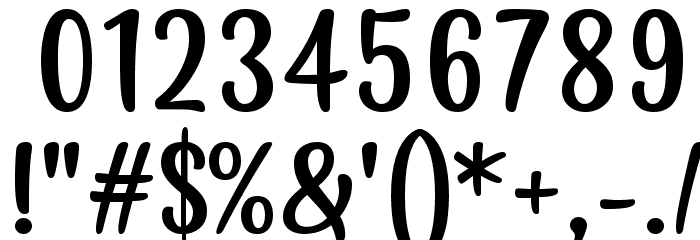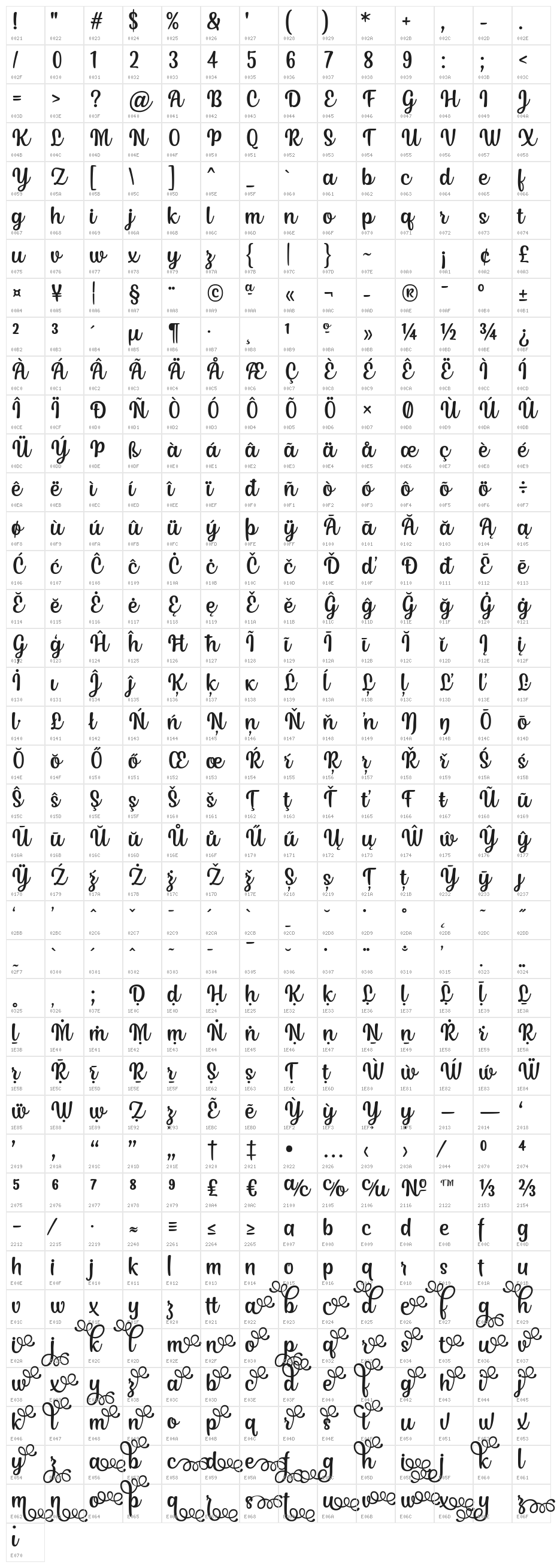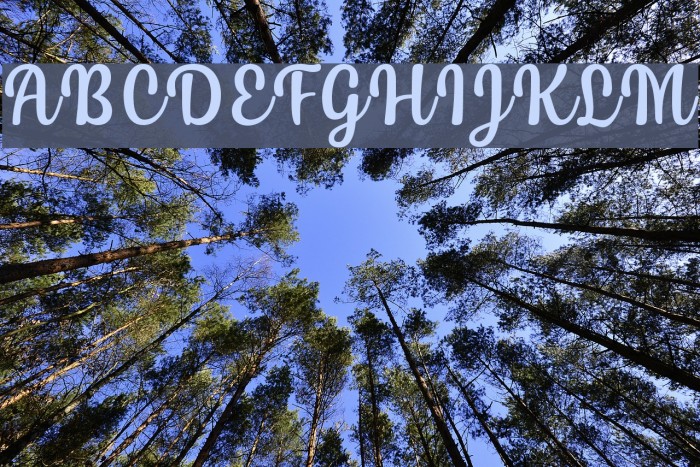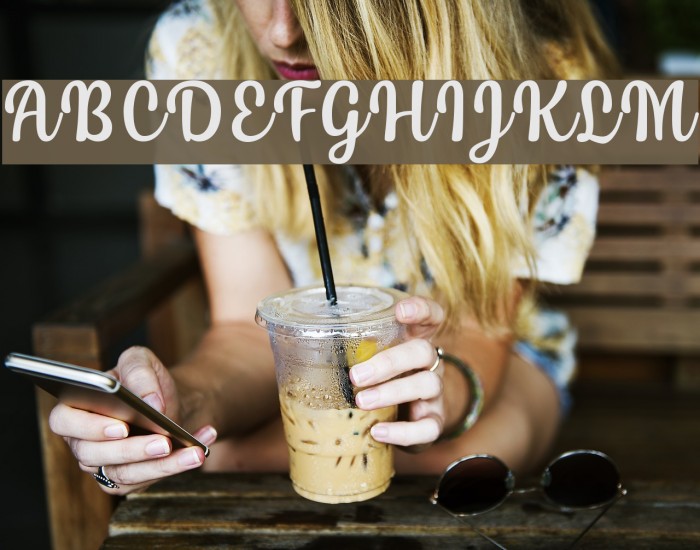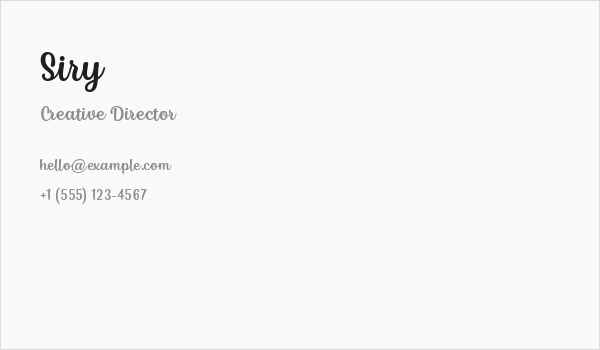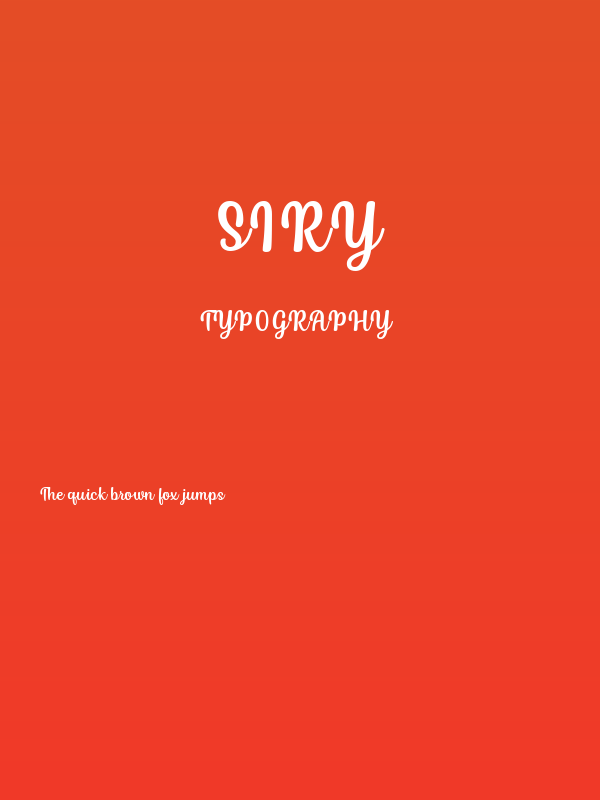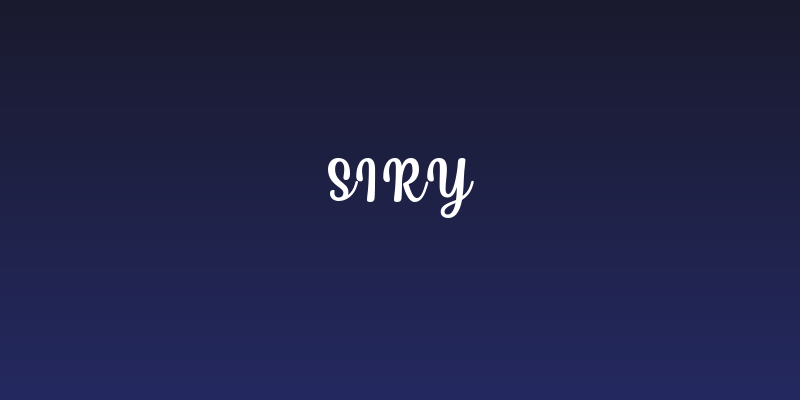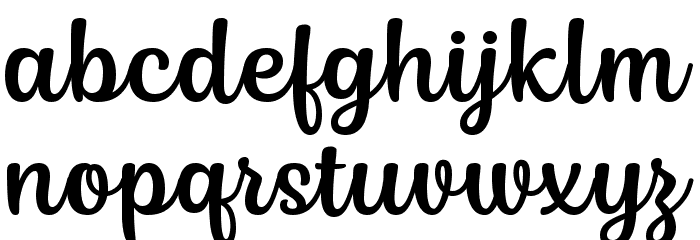
Siry Font
Siry Description
This font features a playful and flowing script style with a handwritten appearance. The uppercase letters are bold and rounded, with a consistent stroke width that gives them a smooth and cohesive look. The lowercase letters maintain the same fluidity, with some characters having distinctive loops and curls that add to the font's charm. The numerals are clear and legible, matching the overall style with rounded edges and a friendly demeanor. Special characters are well-integrated, maintaining the same playful and approachable aesthetic. This font is ideal for projects that require a personal touch or a casual, inviting feel.
Overall StyleCasual
Use CaseLogos, Headlines, Invitations
Proposed ProjectsPerfect for greeting cards, invitations, personal branding, and social media graphics.